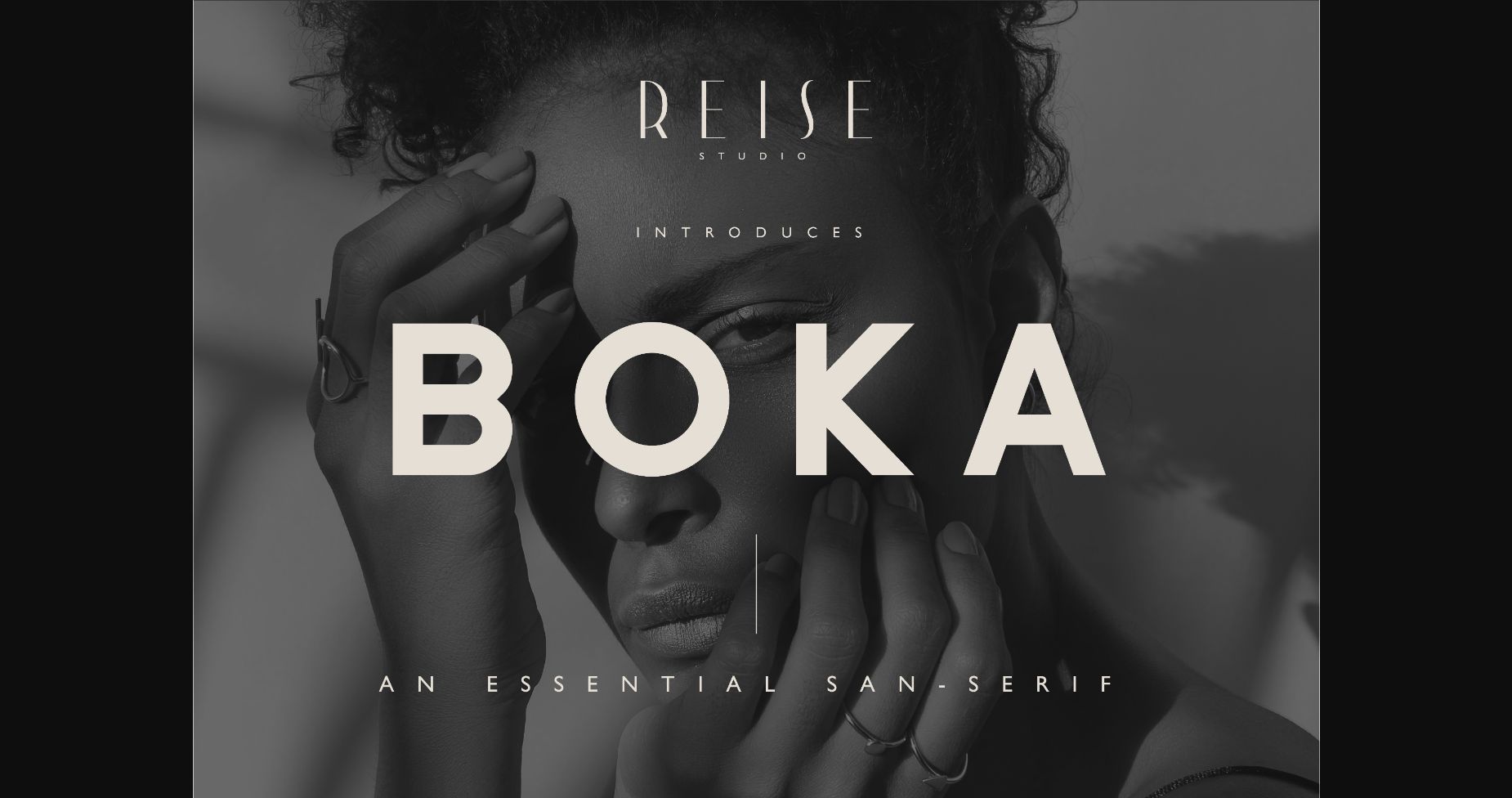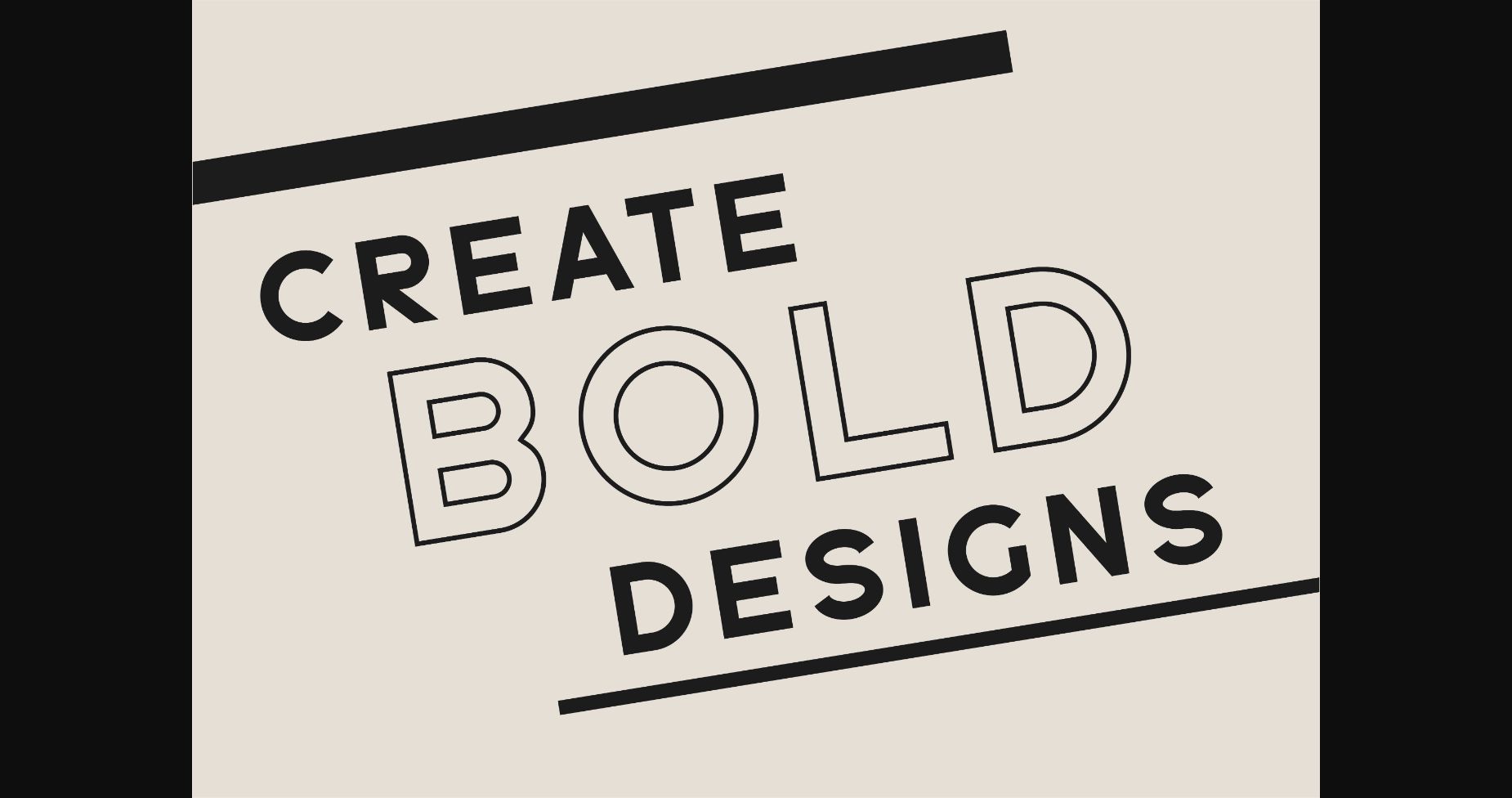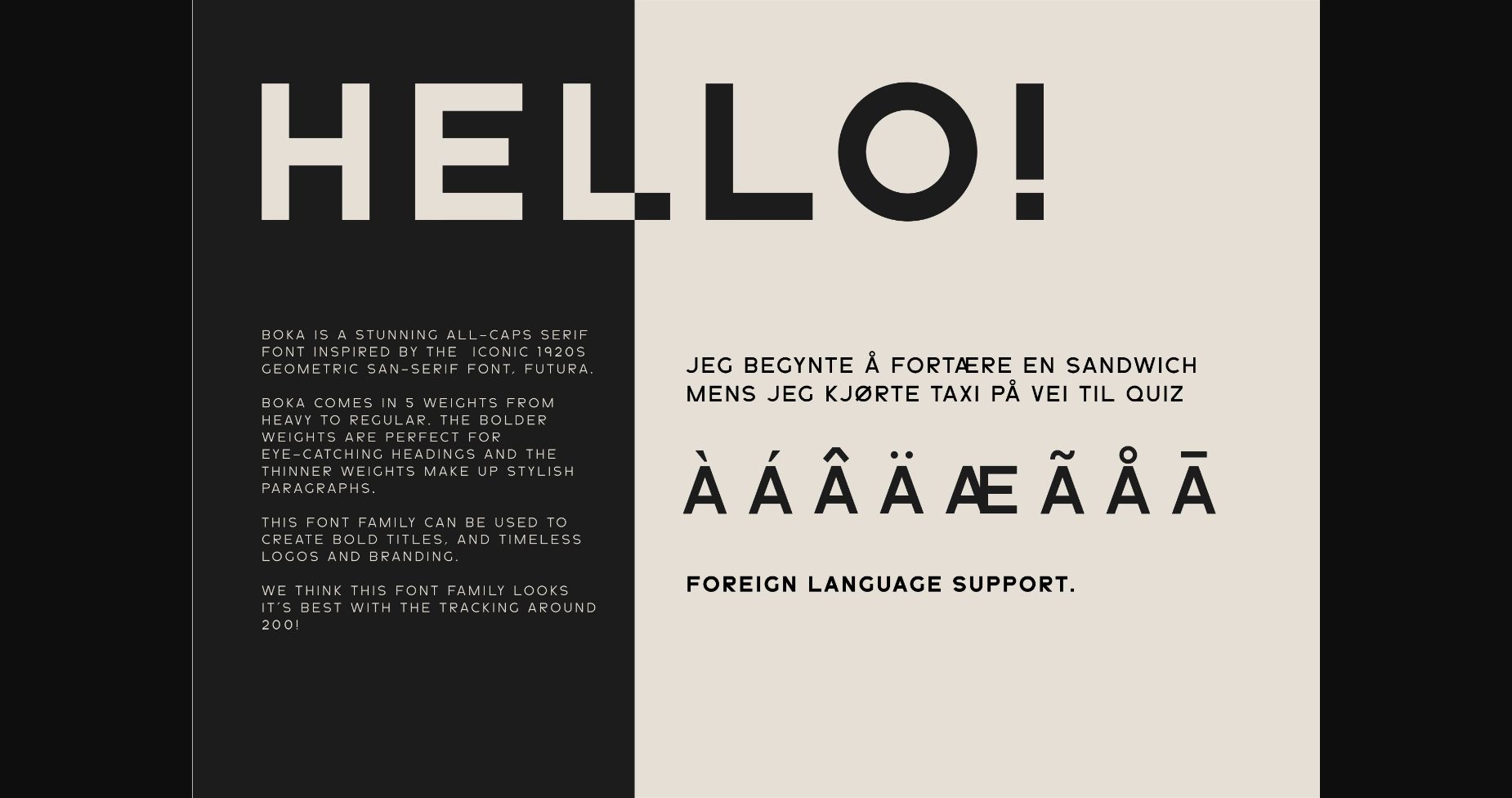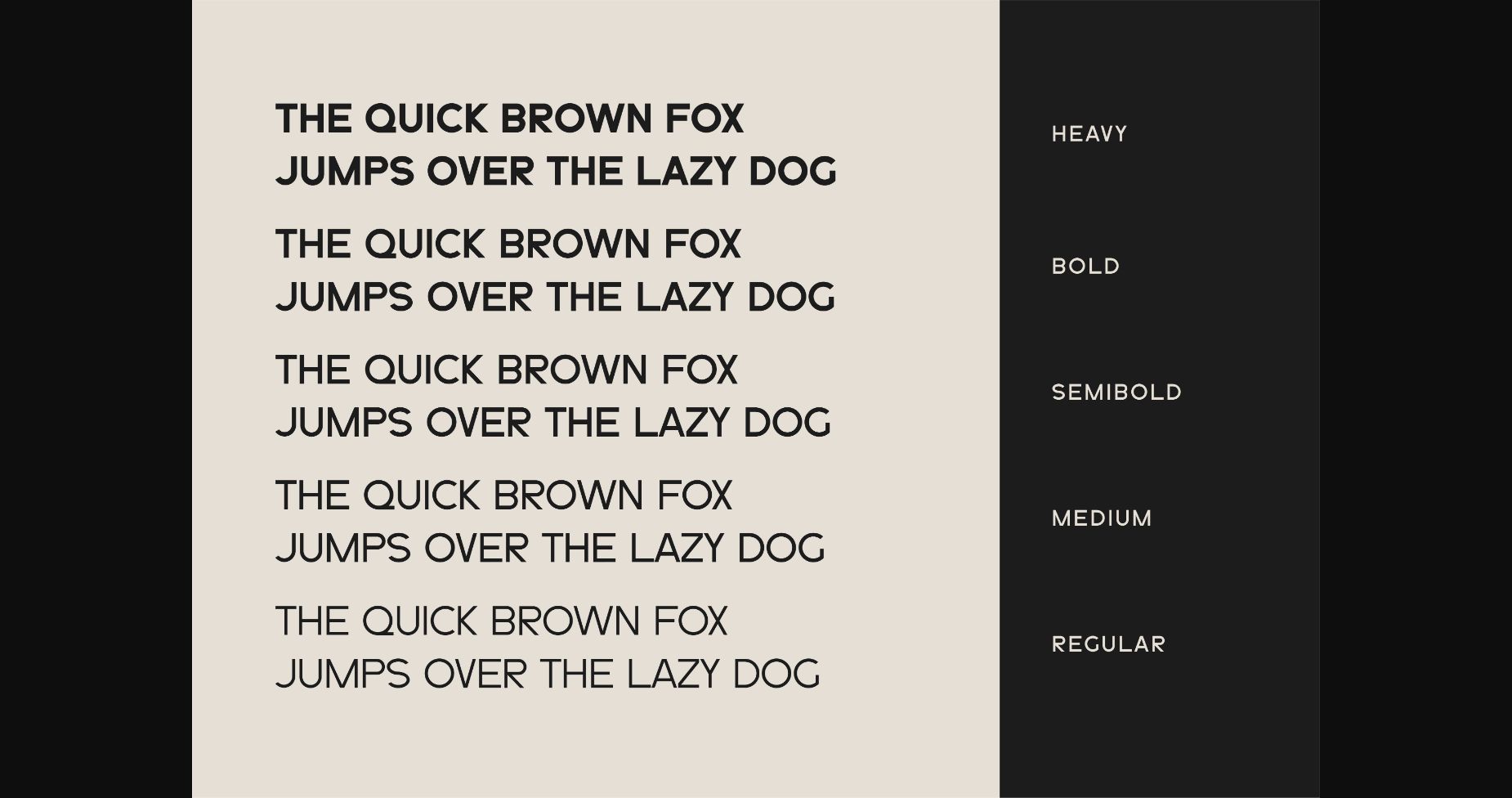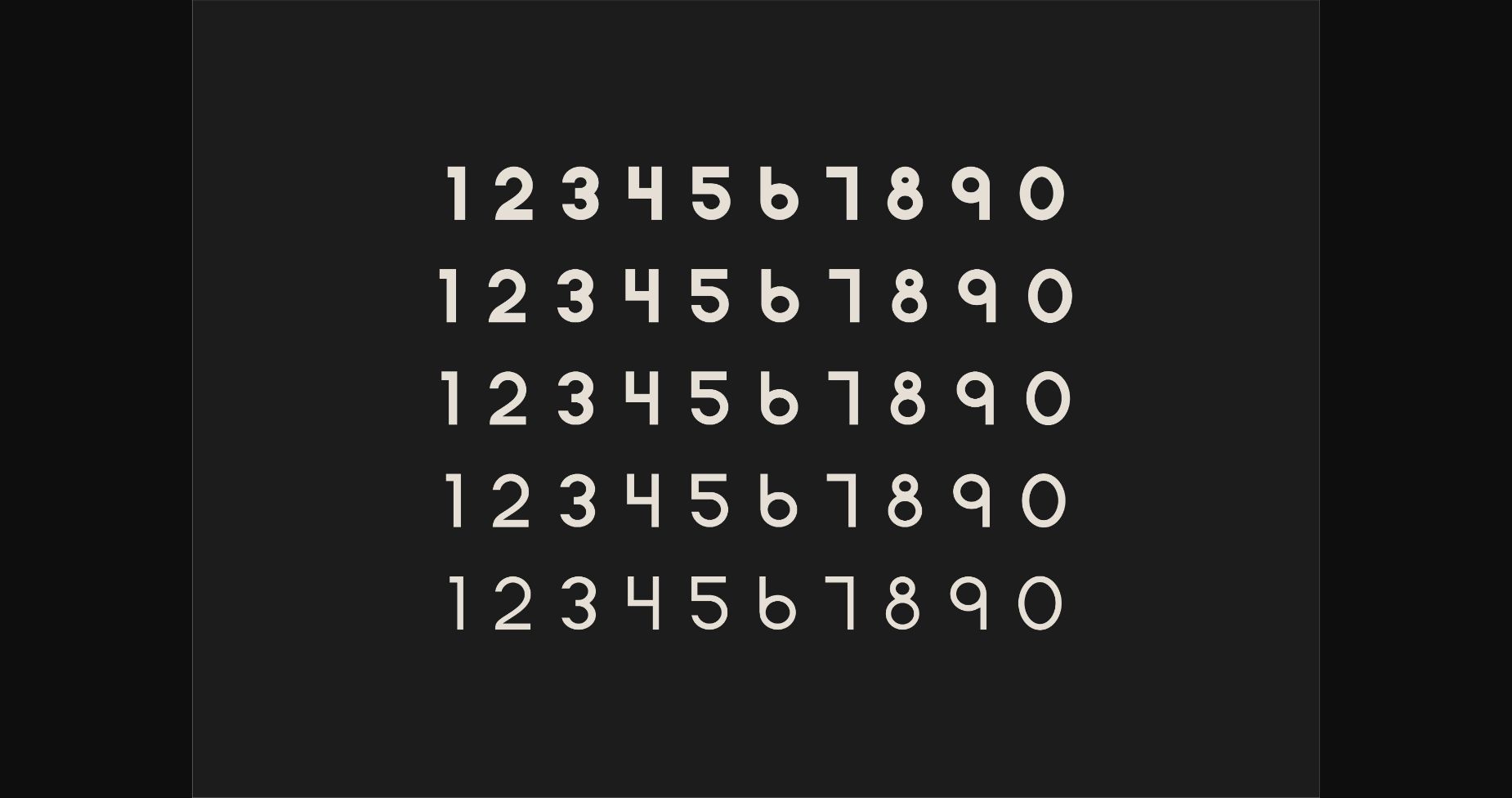
Sans Serif Fonts Boka Font 0 224 FacebookTwitterPinterestWhatsApp 1 of 7 ... Boka Font Poster 2... Boka Font Poster 3... Boka Font Poster 4... Boka Font Poster 5... Boka Font Poster 6... Boka Font Poster 7... About Boka Font This elegant and bold sans-serif font is perfect for creating striking, modern designs. Its sleek lines and angles balance the strength of a bold font with the sophistication of a delicate one. DOWNLOAD NOW